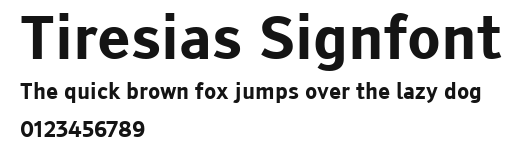
• Font Name: Tiresias Signfont
About Tiresias Signfont.ttf
Tiresias Signfont.ttf is a modern, elegant sans-serif font designed for ultimate readability and visual harmony. Perfect for branding, headlines, web design, and print materials.